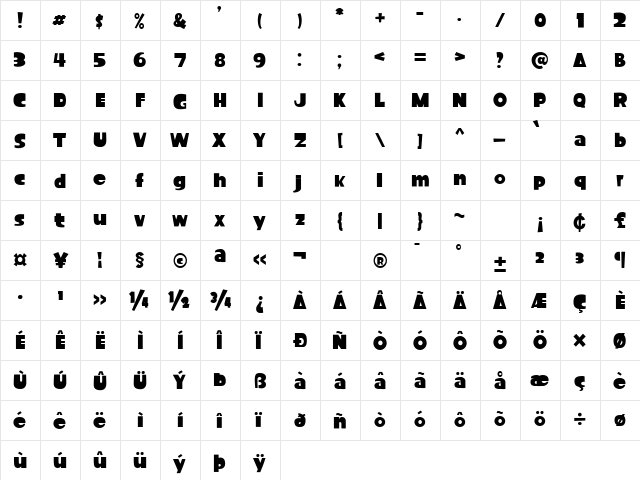
Semlor-demo Regular
| Foundry | listener foundry |
| Designer | Soufiane Abid |
Design Context for Semlor-demo Typeface
Semlor-demo is a composed and adaptable typeface that performs quietly and consistently across a wide range of design contexts.